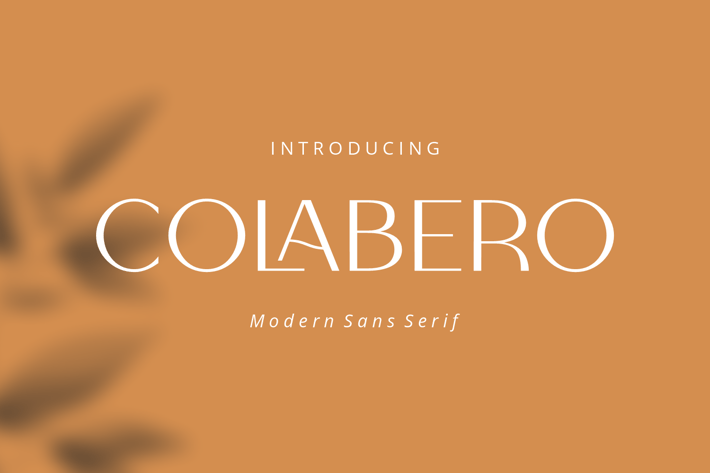
Colabero, Sans Serif Display Font
Colabero is a minimal and neat sans serif font. It can easily be matched to an incredibly large set of projects, so add it to your creative ideas and notice how it makes them stand out!